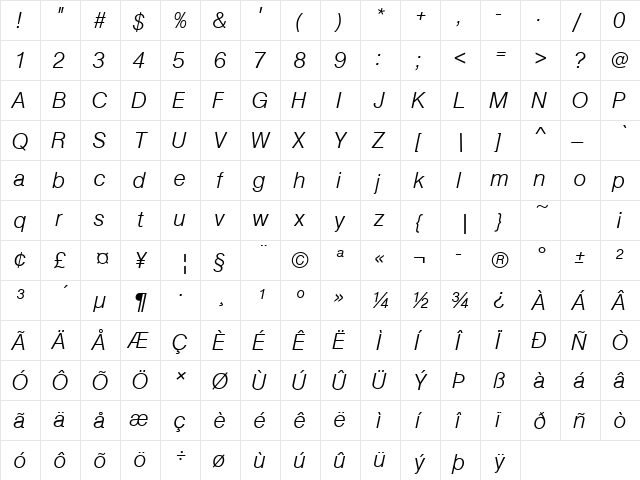
NimbusSanPLig Italic
Design Context for NimbusSanPLig Typeface
NimbusSanPLig takes a measured approach to typography — its balanced proportions and neutral character make it a reliable workhorse for both digital and print work. The slanted form adds forward momentum and visual energy.
Pro Tip: Try NimbusSanPLig for annotation and caption copy alongside an upright companion — the contrast in angle creates a dynamic but ordered typographic system.